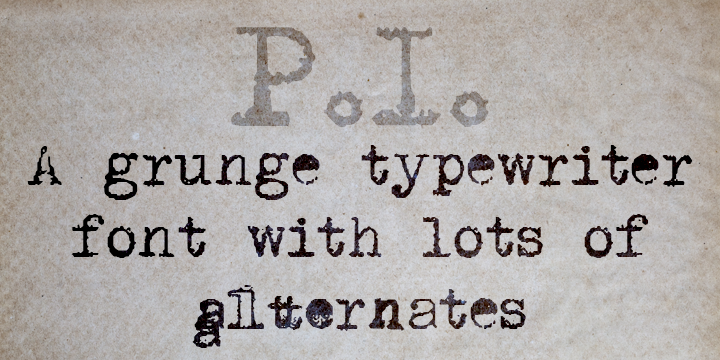
P.I. Font is perfect for detective agency branding, mystery novel covers, crime thriller book series, noir film titles, investigative journalism layouts, security company logos, escape room marketing, private investigator business cards, mystery-themed restaurants, and suspenseful gaming interfaces.
What makes P.I. Font so exciting is its gritty investigative character that perfectly captures the shadowy world of detective work and criminal investigation. This intriguing display typeface features sharp angles, mysterious letterforms, and noir-inspired styling that creates an immediate atmosphere of suspense and professional investigation, making it the ideal choice for brands that want to communicate mystery, intelligence, and the relentless pursuit of truth.
The P.I. Font family includes regular, bold, condensed, and stencil versions, along with detective symbols, magnifying glass motifs, crime scene elements, and investigative decorative features. Each style maintains the font's signature mysterious character while providing designers with versatile options for creating genuinely suspenseful communications that keep audiences engaged and intrigued.
Whether you're designing for detective agencies or mystery entertainment brands, P.I. Font Free Download delivers the investigative edge needed to communicate professionalism and intrigue. The font's carefully crafted letterforms ensure excellent readability while maintaining its distinctive noir character that resonates with audiences who appreciate mystery, intelligence, and the thrill of solving complex puzzles.
This suspensefully designed typeface works brilliantly across both confidential print materials and digital mystery platforms. The P.I. Font maintains its investigative appeal whether displayed on business cards or interactive crime-solving websites, making it essential for anyone in the investigation, security, or mystery entertainment industry.
Crack the case with P.I. Font and experience typography that investigates every detail with the sharp eye of a seasoned detective.